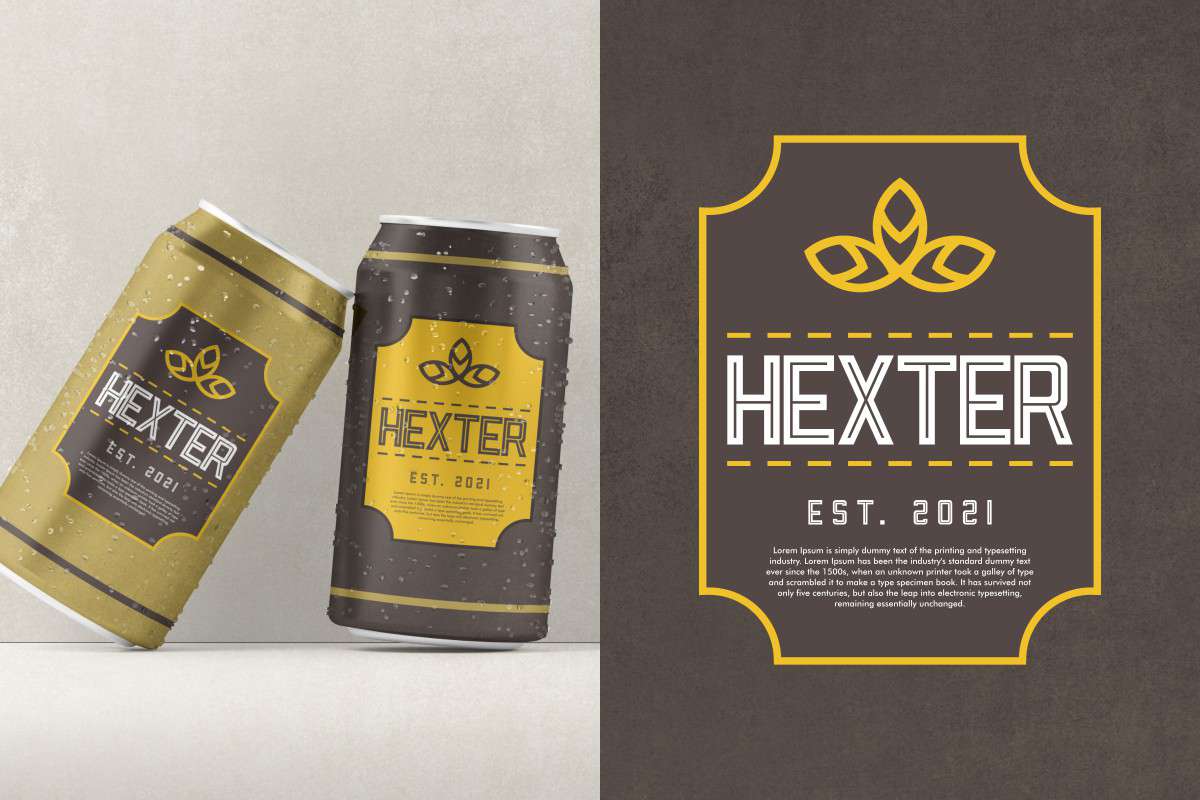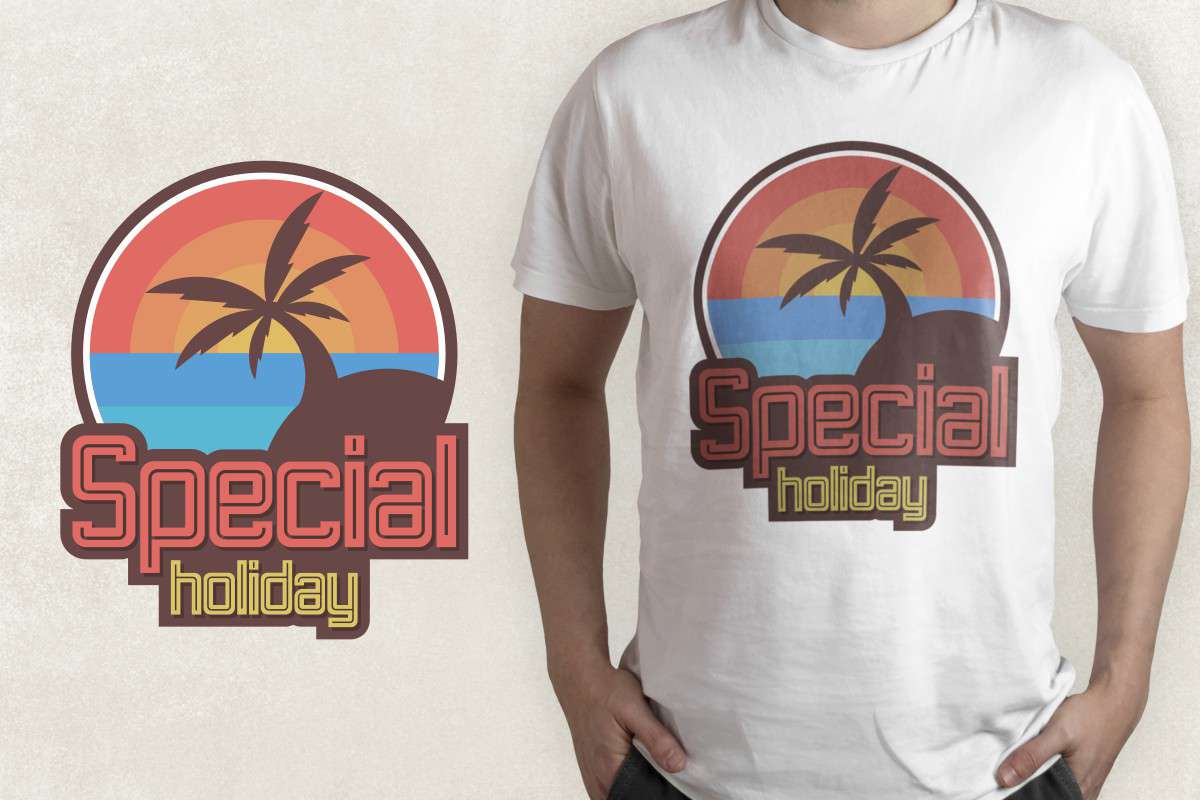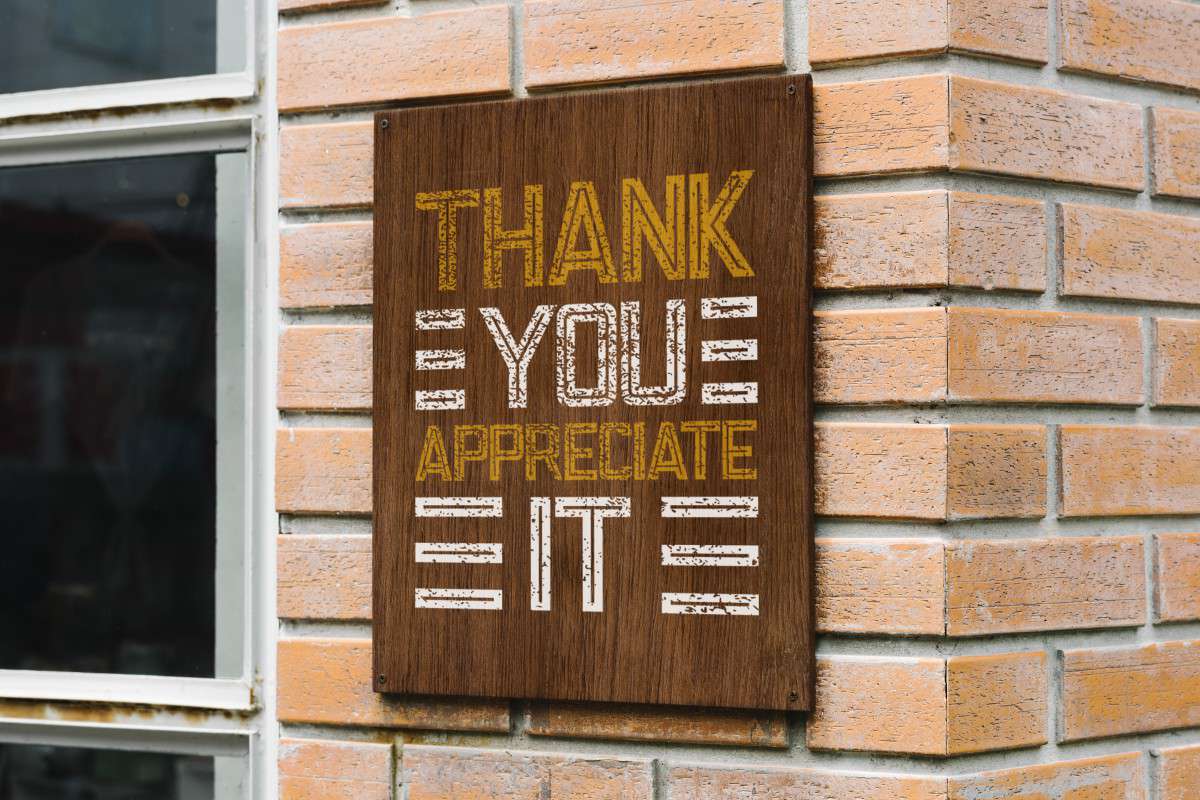
Retro Lines Font
Retro Lines Display Fon
This is a vintage sans serif display font. This font is inspired by the old/retro style. The font has an old style with a clean look that will bring an authentic exclusive touch to the design. It will also work for businesses or companies such as, buying and selling antiques, clothes, food and beverage, shops/retails, signs etc.
It includes full set of Uppercase and Lowercase Basic Characters, Numerals and Punctuation. The font is perfect for many projects, branding logos, headlines, product packaging, posters, signage, titles and many more!